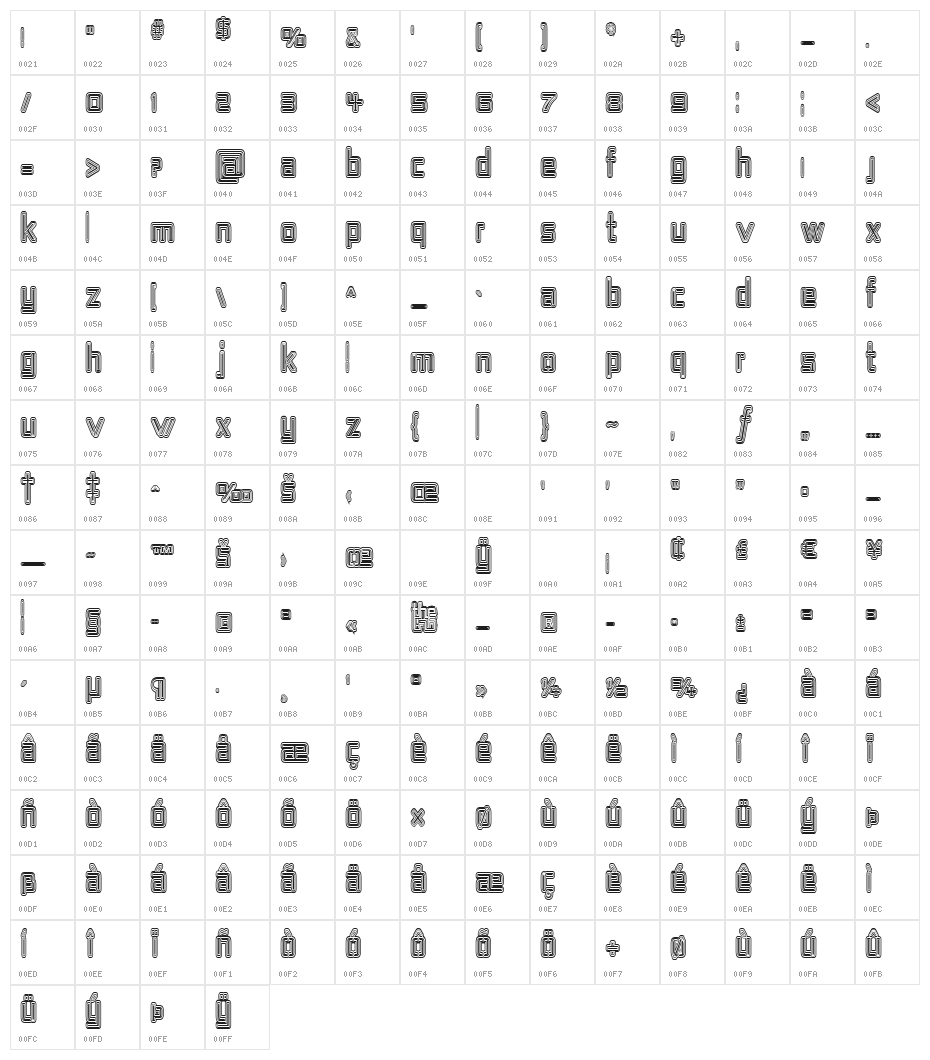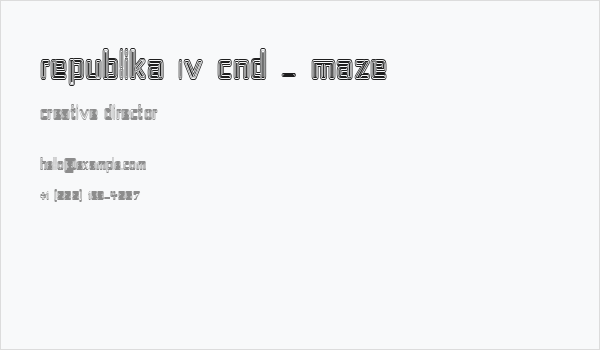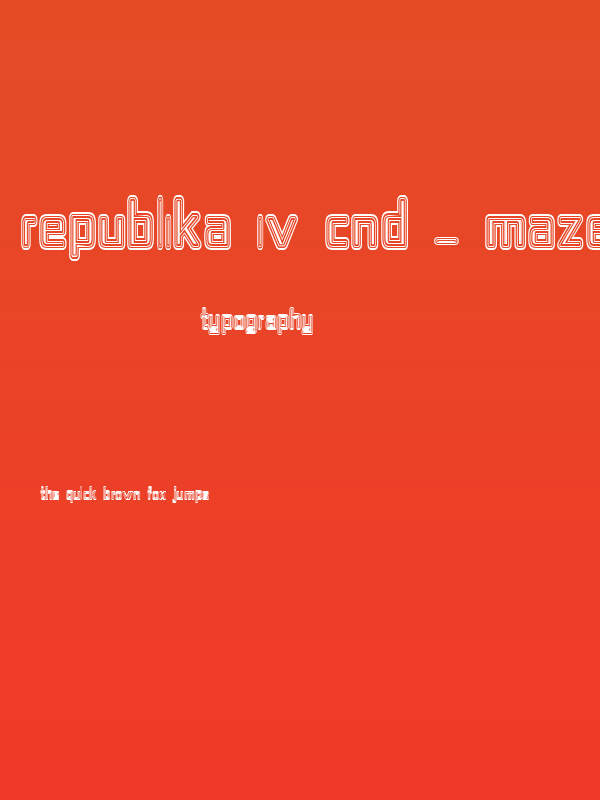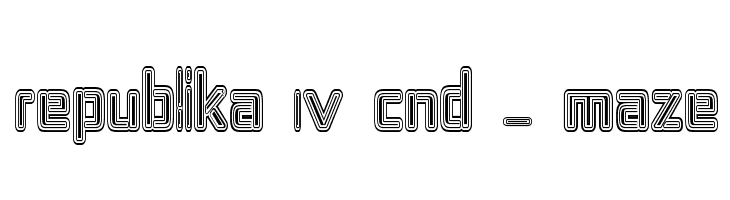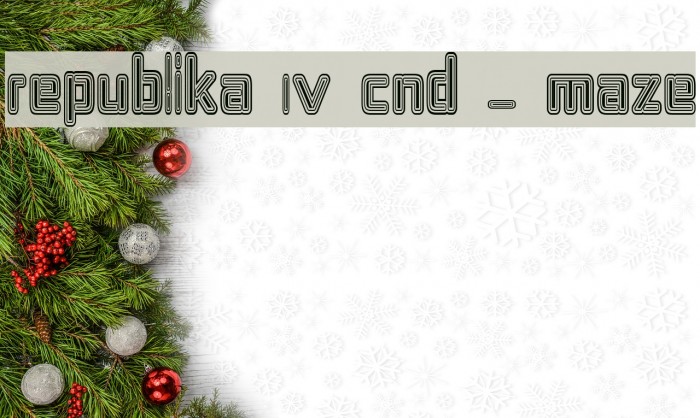
Republika IV Cnd - Maze Font
Republika IV Cnd - Maze Description
This font features a unique, maze-like design with a bold and geometric structure. Each character is composed of multiple parallel lines that create a three-dimensional effect, giving it a striking and modern appearance. The letters are uniformly spaced, maintaining a consistent width throughout, which enhances readability despite its intricate design. The font's style is both decorative and futuristic, making it ideal for projects that require a standout visual element. Its boldness and complexity suggest a strong presence, suitable for eye-catching headlines or creative branding.
| Proposed Projects | Ideal for creative branding, eye-catching headlines, posters, and modern digital art. |